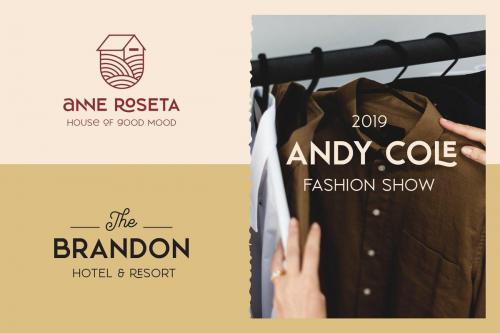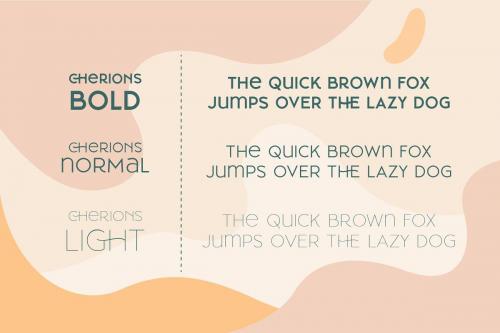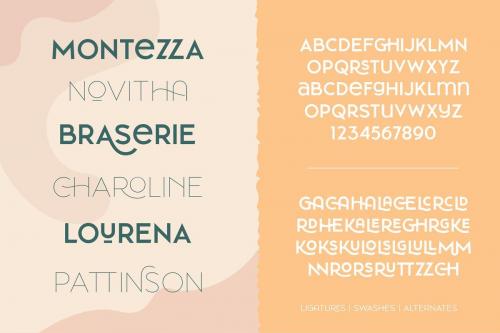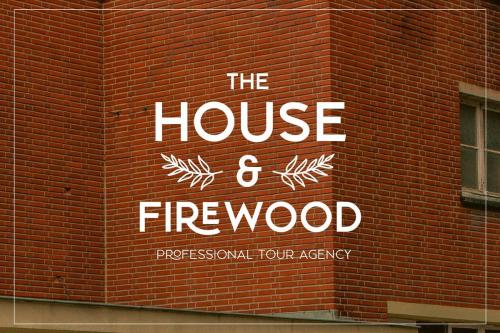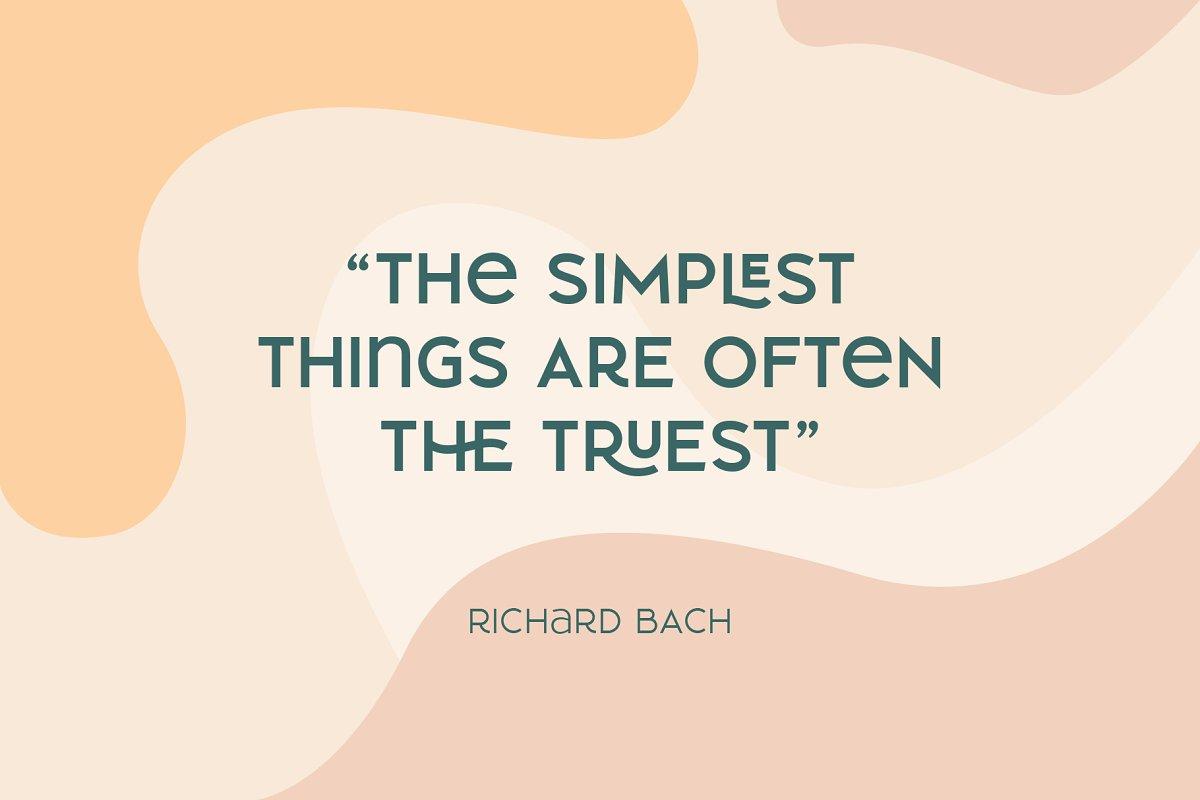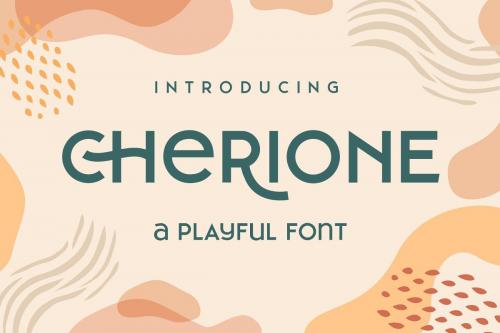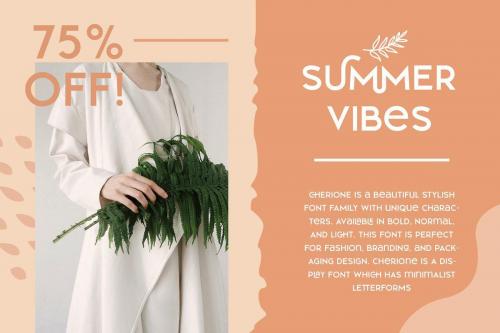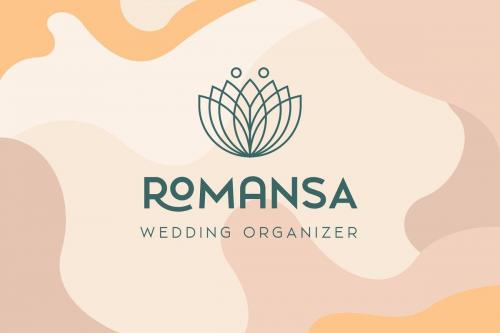
Introducing our new exploration Cherione Sans the playful sans serif font family. Cherione has a unique letterform, the lowercase designed the same height with the uppercase that gives a playfully look. Cherione font has a geometric shape and carefully adjusted to look elegant and minimalist. Perfect for fashion style, minimalist, luxury, kids, and joyful theme.
Cherione font family consists of 3 weights: Light, Normal, and Bold. So you can use this font set for many purposes such as logo, storefront, social media design, quote, name card, menu, magazine & editorial, signboard, poster, apparel needs.
There are 30+ unique ligatures which give you many variations of typography designing. Also complete with accents, swashes, and alternates.
- Designer: Arterfak Project